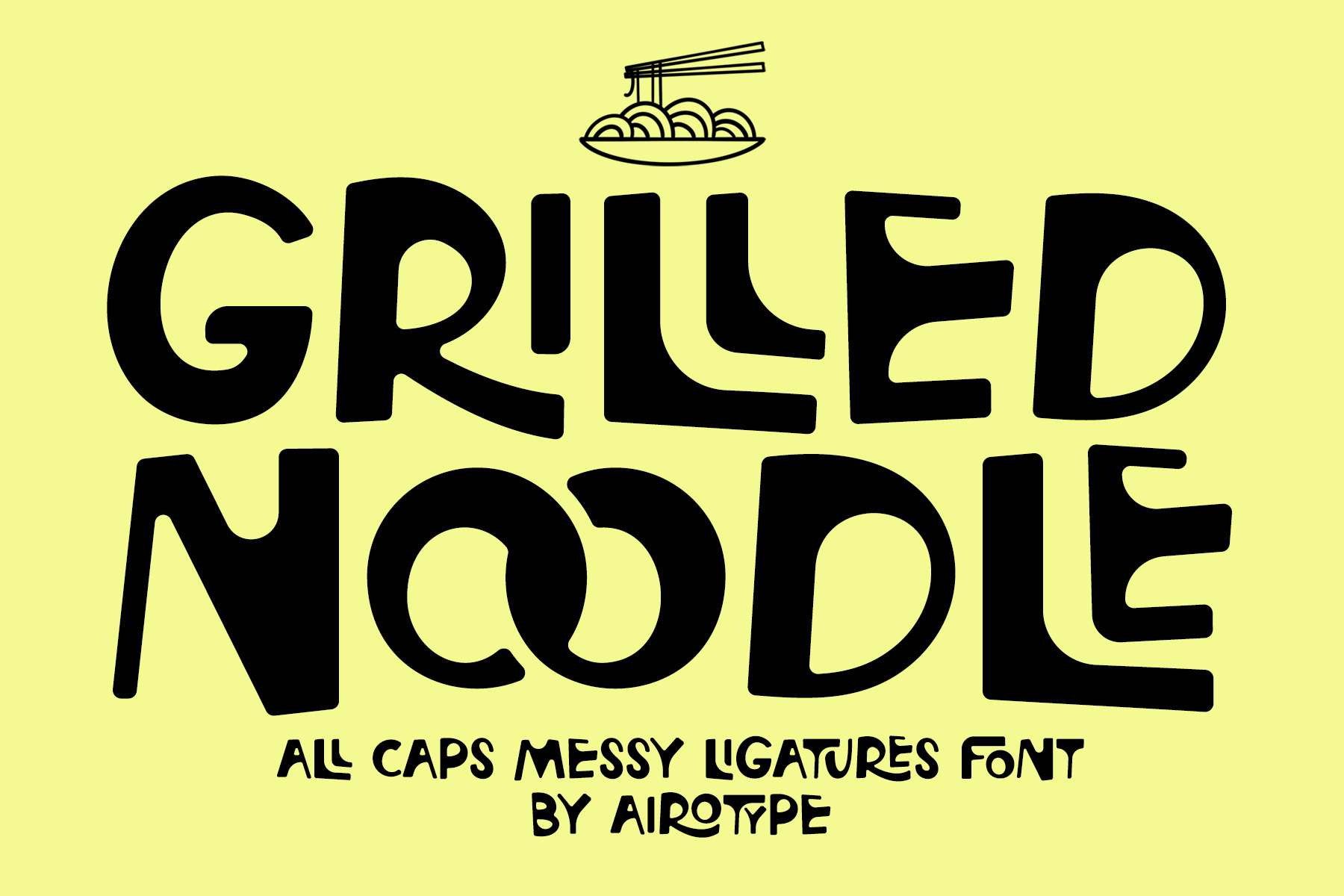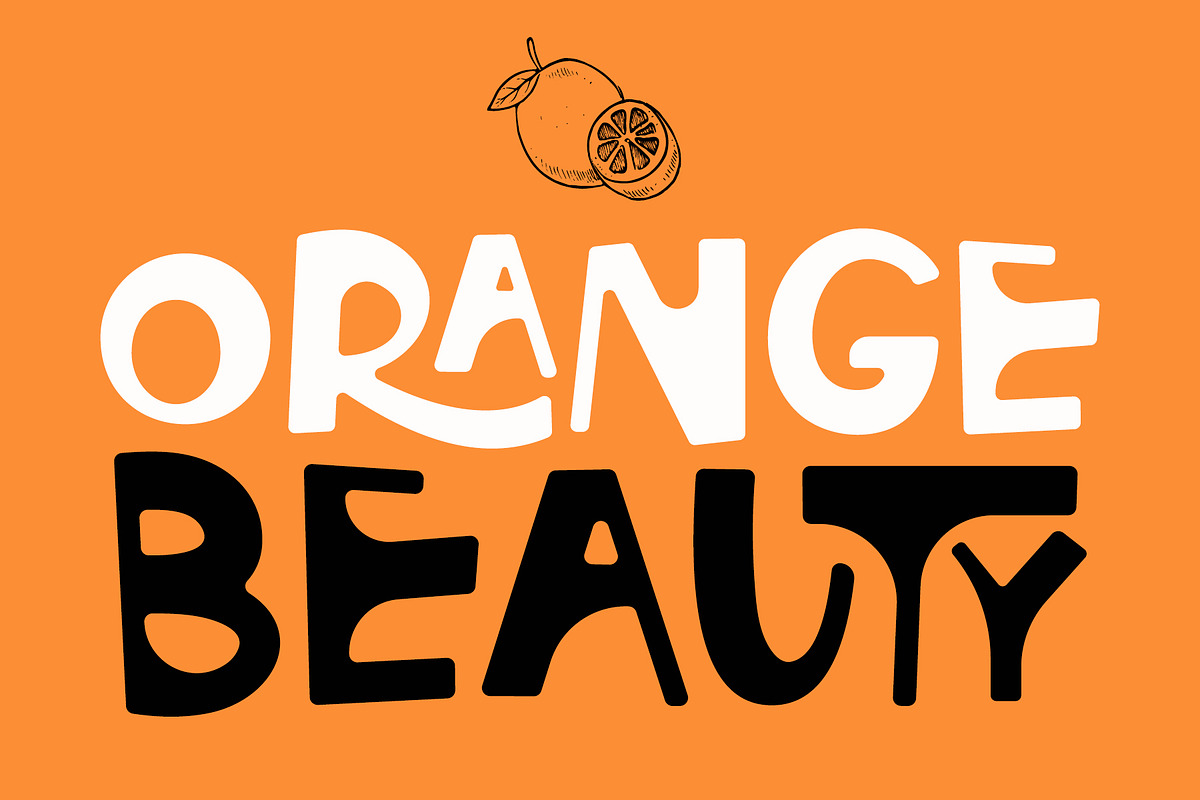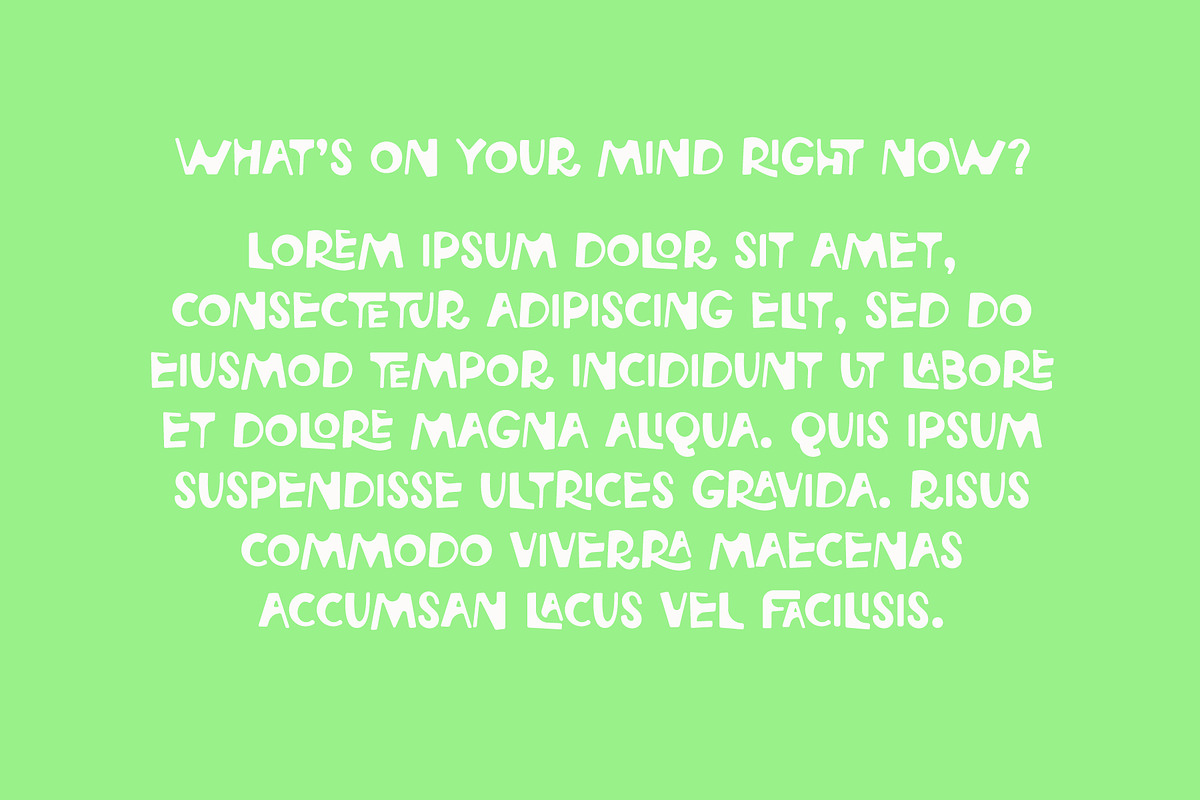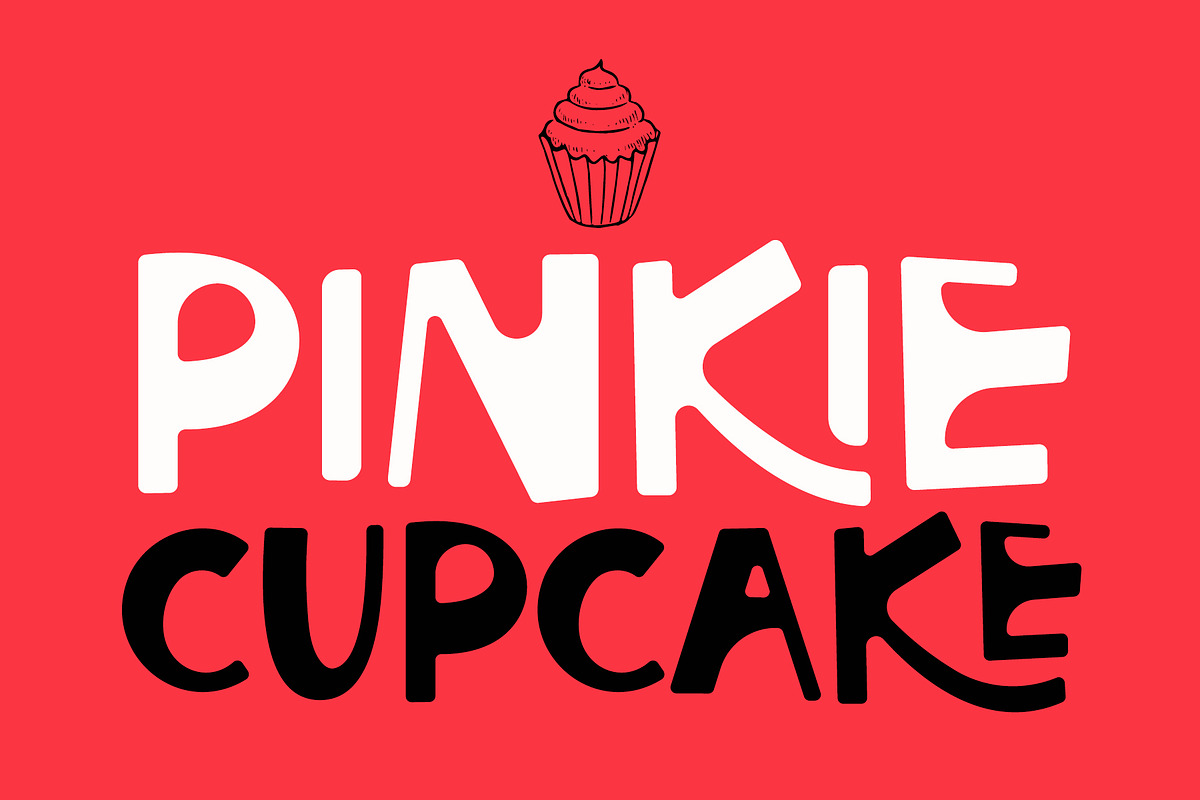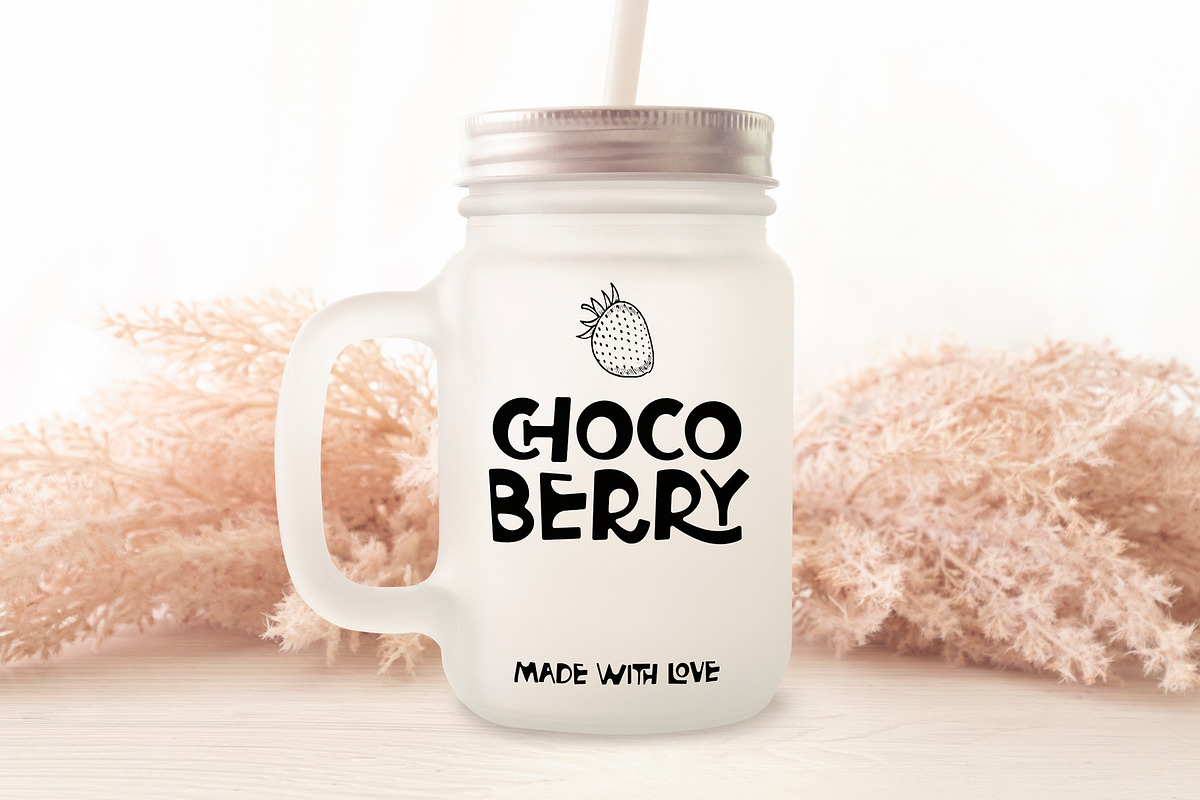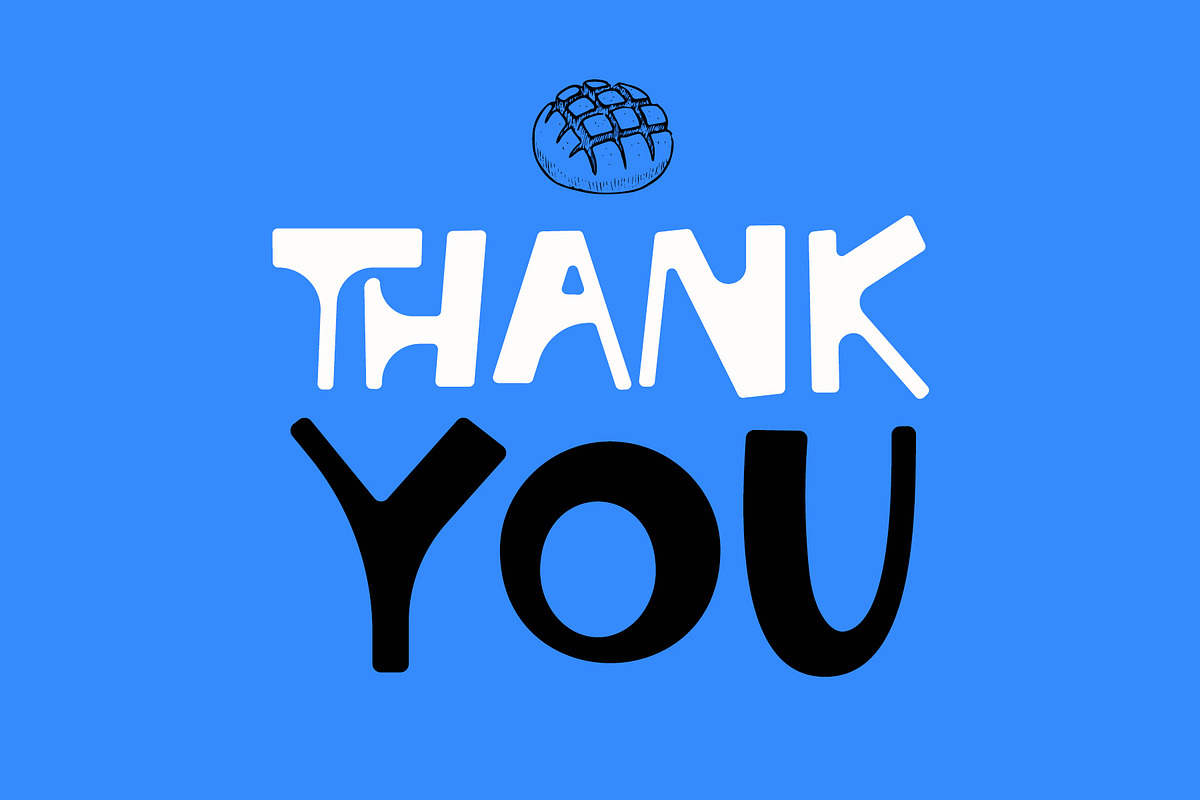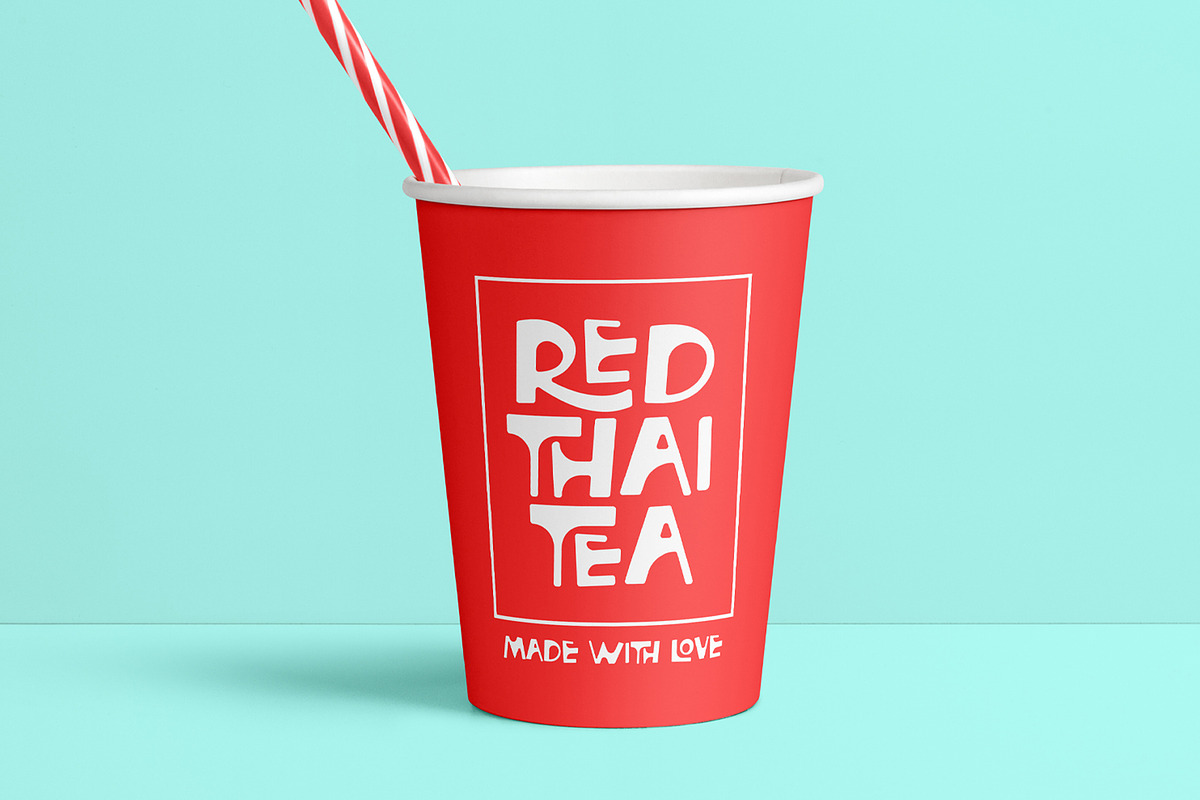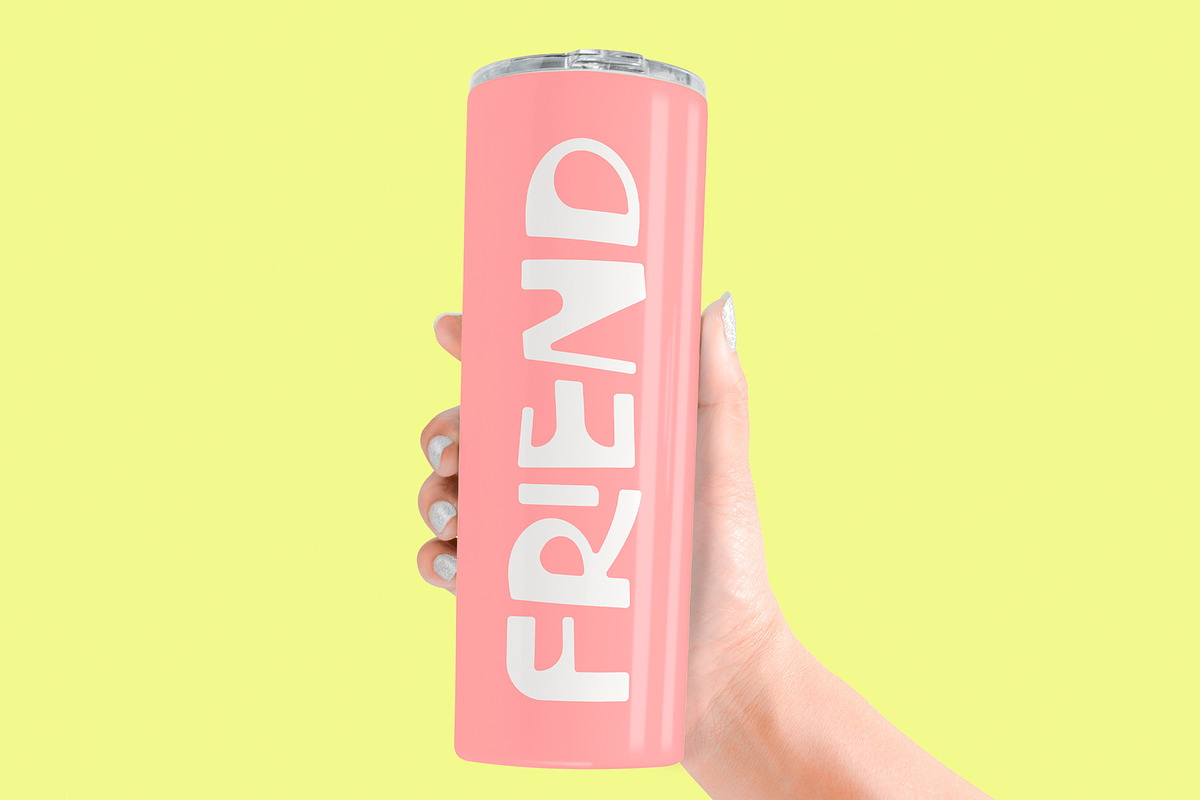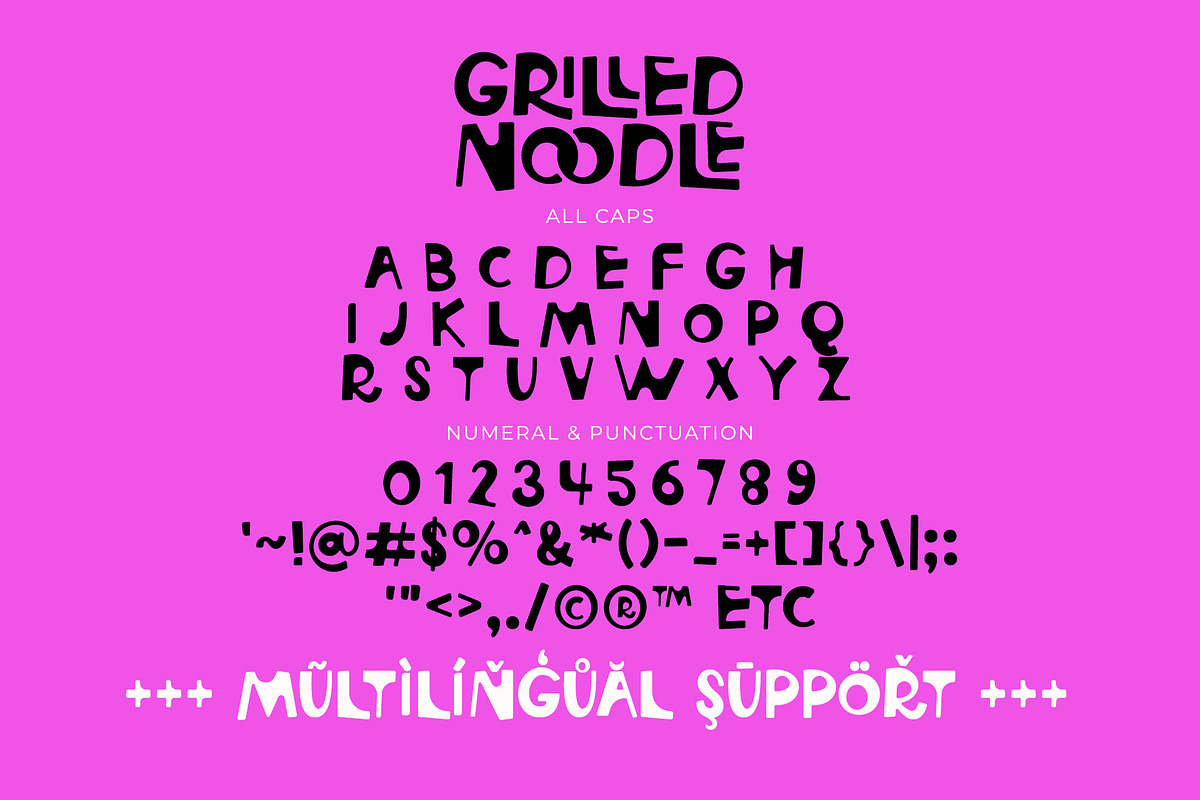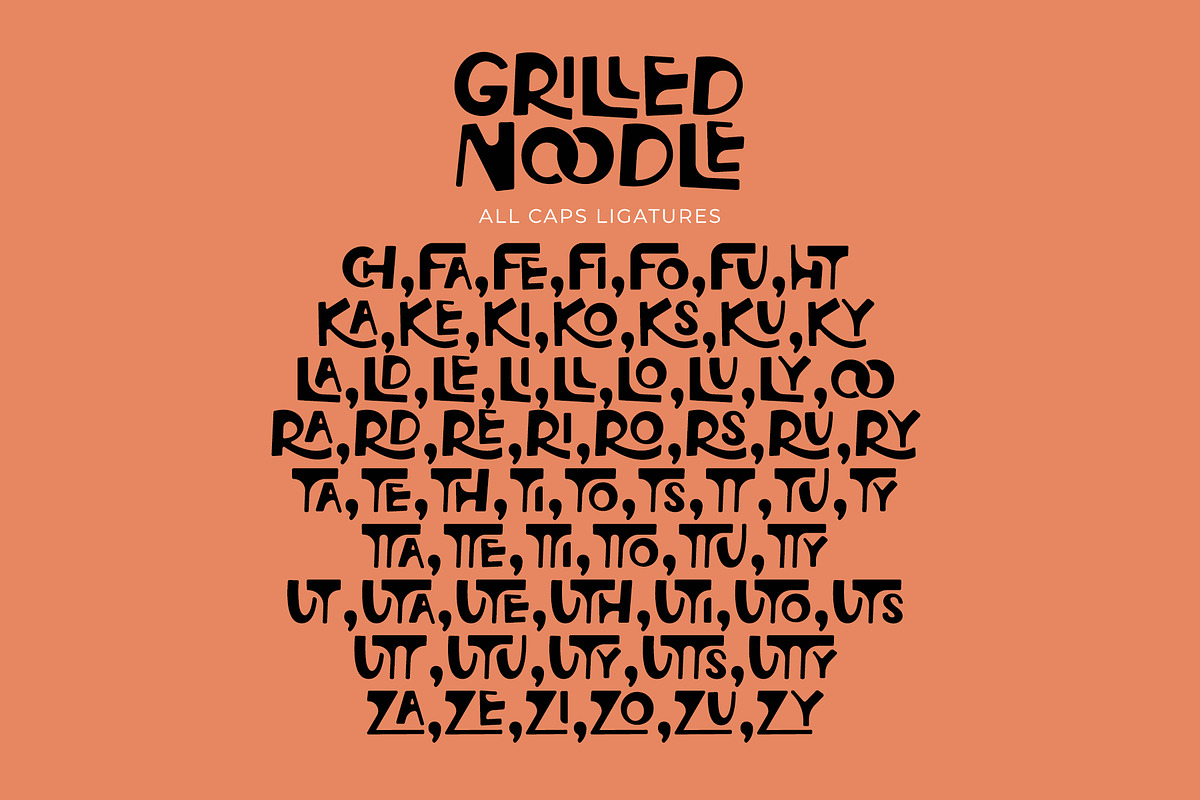
Grilled Noodle - Cute Display Font
Grilled Noodle is All Caps Display Font. It is cute, festive, and playful.
Grilled Noodle has tons of ligatures with cute style. Make sure your design software has ligature features.
Grilled Noodle is pretty font for wide ranges of design with cute theme, such as t-shirt, display, crafting, sticker, quotes, tumbler, sublimation, and many more.
All Caps with ligatures
Numeral and Punctuation
Most Multilingual Accent